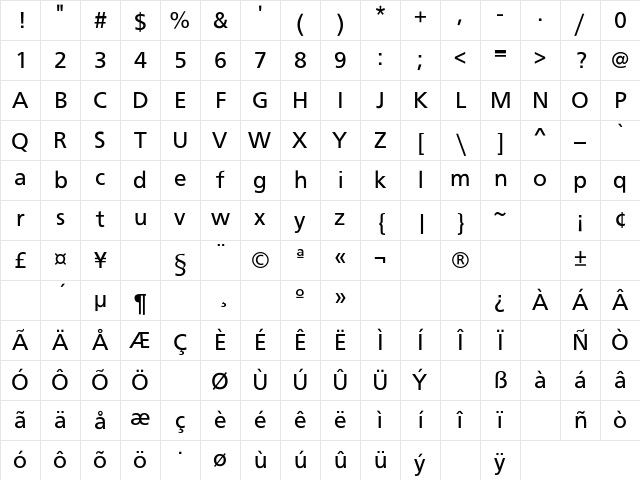
Roissy Regular
Roissy Family
Complete Roissy Regular glyph index. Displaying only characters natively supported by Roissy Regular font.
Design Context for Roissy
Roissy is a composed and adaptable typeface that performs quietly and consistently across a wide range of design contexts.